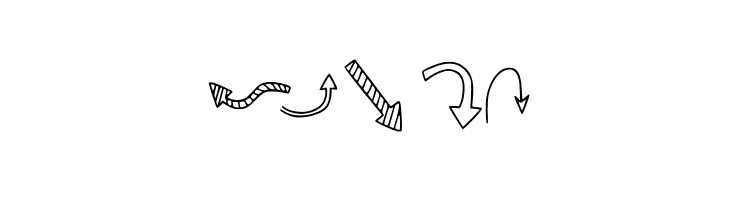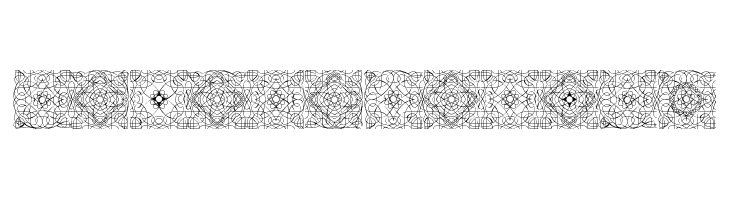
( Fonts by Muhammad Yafinuha )
Hand-drawn, sketch-style arrows and symbols with a casual, informal look.
( Fonts by Vladimir Nikolic )
Intricate floral patterns in square frames with vintage elegance.
( Fonts by enigmailed )
A geometric, abstract font resembling semaphore signals with a modern, cryptic style.
( Fonts by gluk )
Intricate decorative patterns unsuitable for text.
( Fonts by Vladimir Nikolic )
A versatile set of modern check and cross icons with bold outlines.
( Fonts by twts )
A decorative, alien-like font with bold, geometric shapes and a futuristic style.
( Fonts by Kris Derry )
An abstract, artistic font with bold, irregular shapes.
( Fonts by Ezeray Ciel )
A bold, angular font with a futuristic and abstract design.